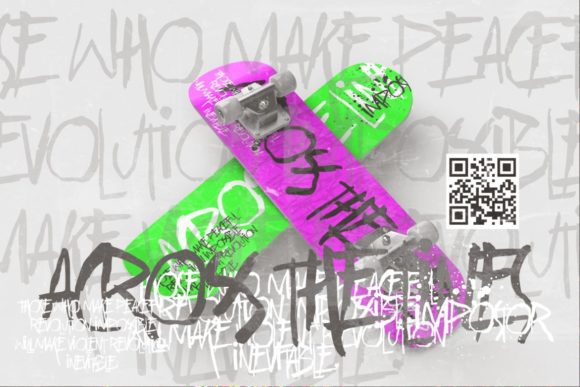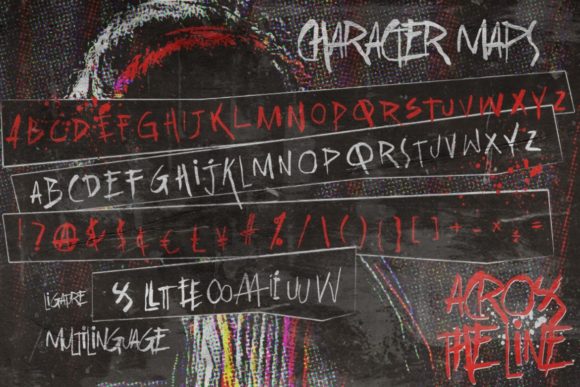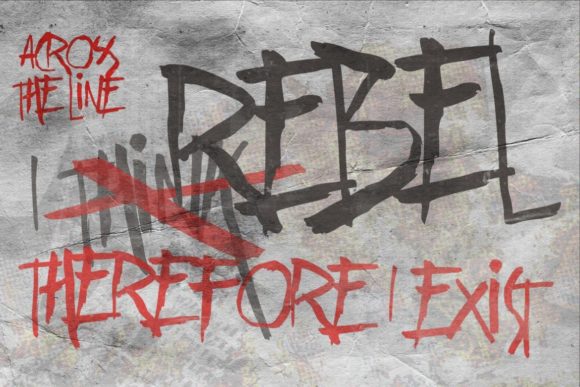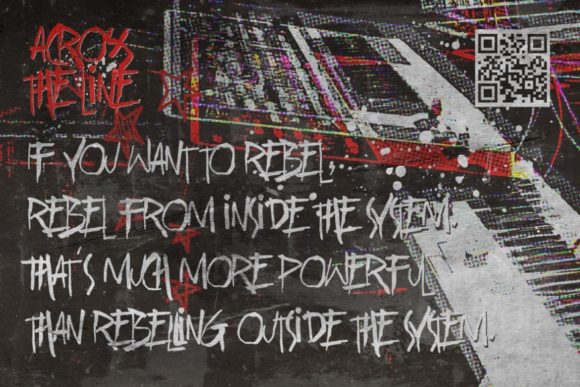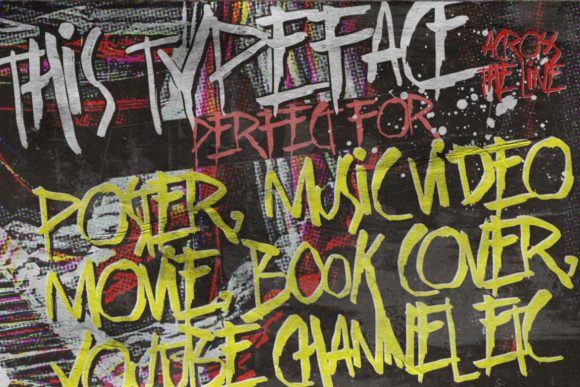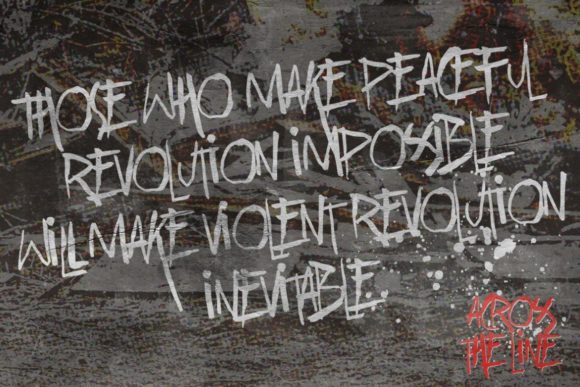
Unleash the Creepiness: Discover the Across the Line Font
Are you a designer or crafter looking for a font that can add a touch of eeriness to your projects? Look no further than the Across the Line font. This creepy looking display font is perfect for creating designs that require a bold and unsettling aesthetic. In this article, we’ll dive into the features and uses of the Across the Line font, and explore how it can elevate your designs.
What is Across the Line Font?
Across the Line is a unique and eye-catching display font that is sure to grab attention. Its creepy and edgy design makes it ideal for projects that require a bold and daring look. The font features irregular shapes and sharp lines, giving it a distressed and worn-out appearance. This font is perfect for designers who want to add a touch of horror or unease to their designs.
Key Features of Across the Line Font
- Creepy and Edgy Design: The Across the Line font features a unique and unsettling design that is sure to grab attention.
- Display Font: This font is specifically designed as a display font, making it perfect for headlines, titles, and short text.
- Distressed and Worn-Out Appearance: The font’s irregular shapes and sharp lines give it a distressed and worn-out appearance, adding to its creepy aesthetic.
- Versatile: The Across the Line font can be used for a wide range of projects, from t-shirts and sportswear to logos, advertisements, and more.
Uses of Across the Line Font
The Across the Line font is suitable for a variety of designs, including:
- T-Shirts and Sportswear: Add a touch of creepiness to your apparel designs with this bold and eye-catching font.
- Logos and Branding: Create a memorable and unsettling logo for your brand with the Across the Line font.
- Advertisements: Grab attention with this bold and creepy font, perfect for advertisements that require a bold aesthetic.
- Clothing and Accessories: Use the Across the Line font to create unique and eye-catching designs for clothing and accessories.
Tips for Using Across the Line Font
Here are some tips for using the Across the Line font effectively:
- Use it Sparingly: Due to its bold and creepy design, it’s best to use the Across the Line font sparingly to avoid overwhelming the viewer.
- Pair it with Other Fonts: Pair the Across the Line font with other fonts to create a unique and visually appealing design.
- Experiment with Colors: Experiment with different colors to find the perfect combination that complements the creepy aesthetic of the font.
The Across the Line font is a unique and eye-catching display font that is perfect for designers and crafters looking to add a touch of creepiness to their projects. With its bold and unsettling design, this font is sure to grab attention and leave a lasting impression. Whether you’re designing t-shirts, logos, or advertisements, the Across the Line font is a versatile and effective choice.
In conclusion, the Across the Line font is a must-have for designers and crafters looking to add a touch of horror or unease to their projects. Its unique and eye-catching design makes it perfect for a wide range of applications, from apparel designs to logos and advertisements. So, don’t be afraid to get creative and experiment with the Across the Line font – your designs will thank you!